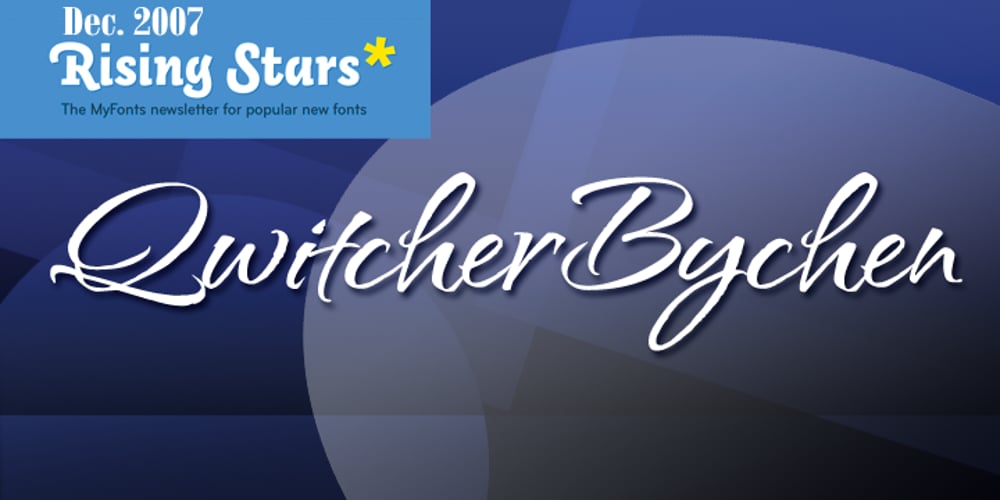
QwitcherBychen
QwitcherBychen font
QwitcherBychen Font Family was designed by Rob Leuschke and published by TypeSETit. QwitcherBychen contains 2 styles and family package options. A light-hearted fun handwritten script.